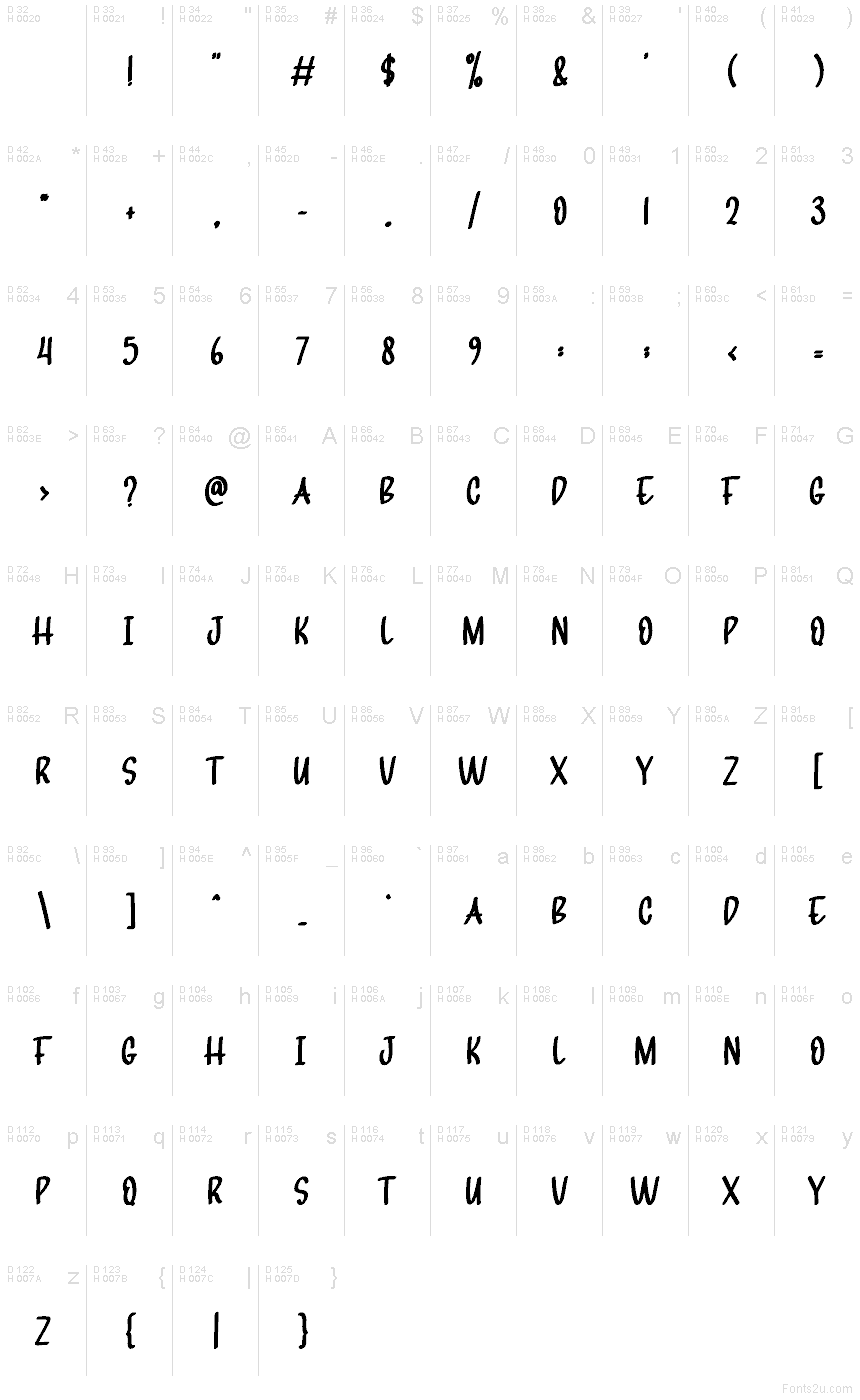
Winter Melon
Winter Melon font by Andi Moz is a free handwritten brush typeface with a bold, inky presence and loose, vertical strokes. Letters feel hand-painted, with slightly irregular widths and a juicy, squeezed-in texture that makes words look energetic and alive. The rounded forms and subtle wobble keep it friendly rather than aggressive, like signage quickly brushed on a market stall chalkboard.
Using Winter Melon, headlines and short phrases snap into focus, making this free font a natural fit for posters, social media graphics, quote images, product packaging, event flyers, and playful branding. It shines at larger sizes where the brush texture can breathe. For longer text, pair Winter Melon with a clean, neutral sans serif so its lively shapes stay the star of the layout.